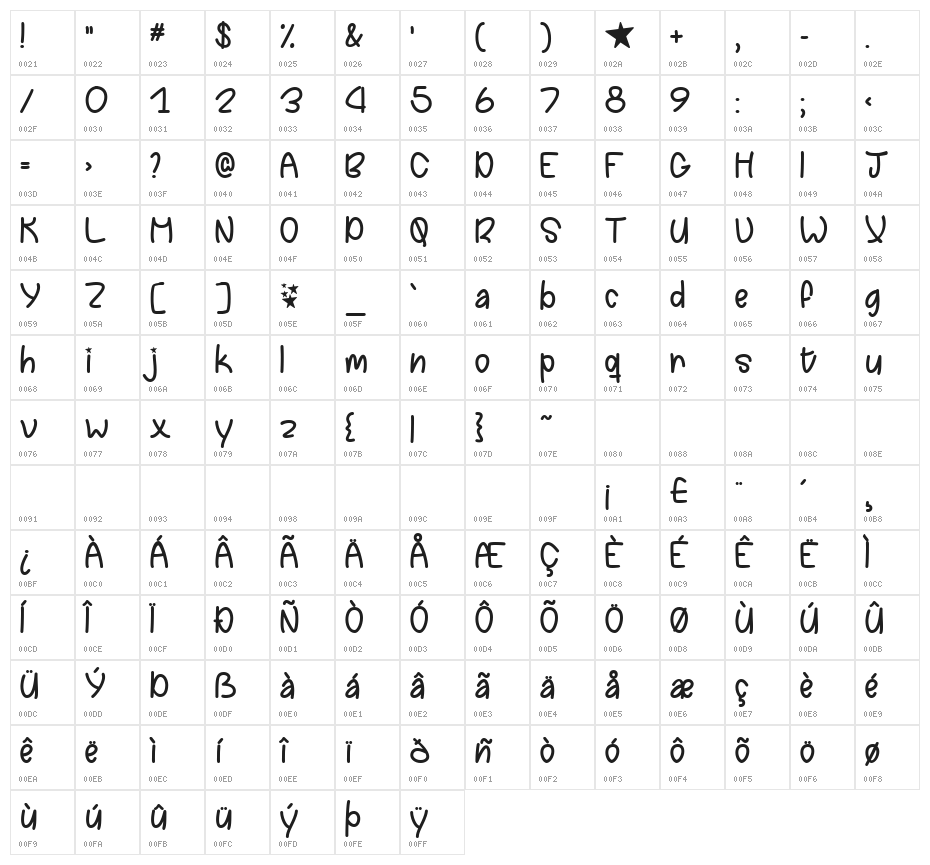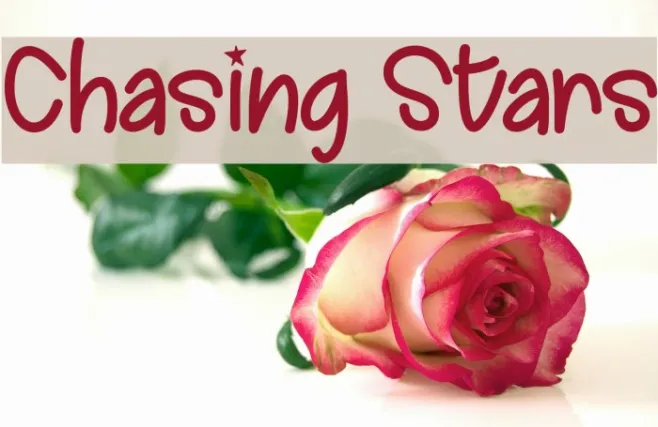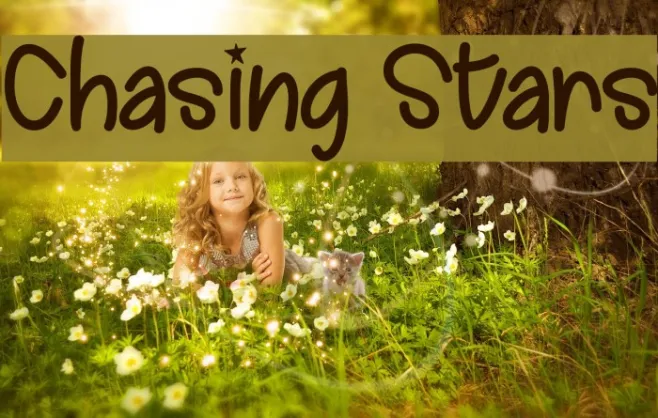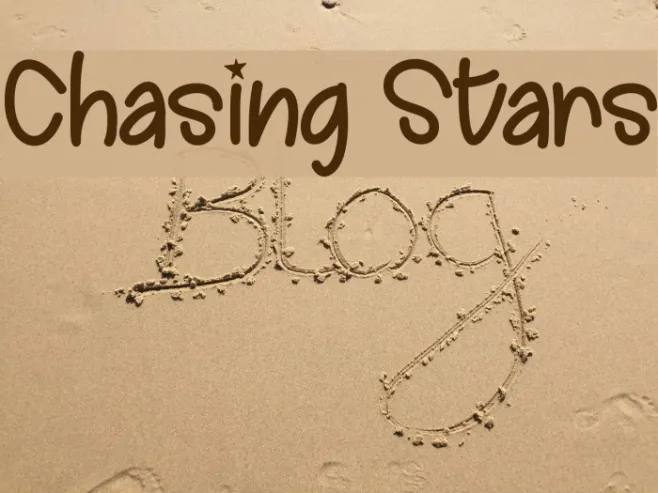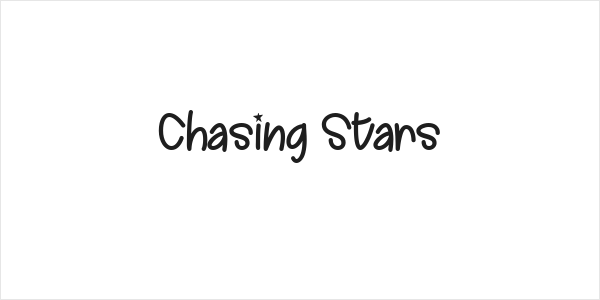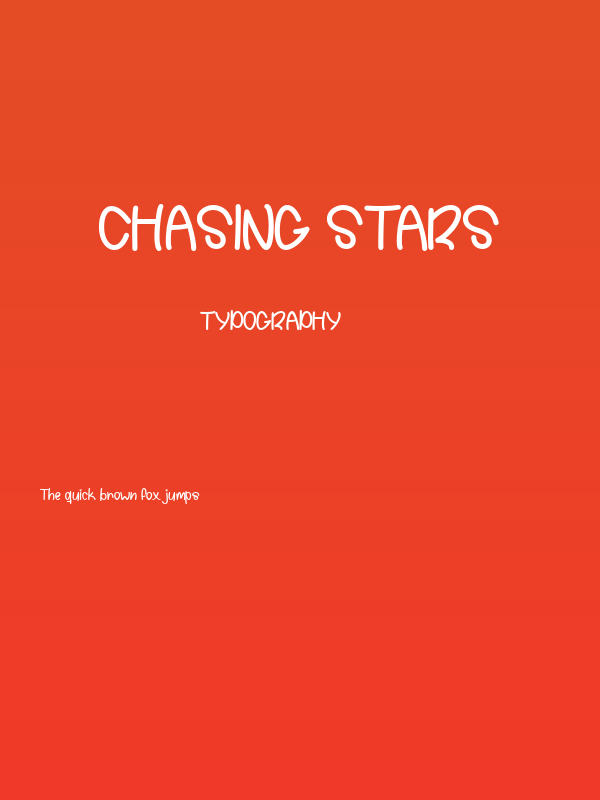
Chasing Stars Font
Chasing Stars Description
This playful and whimsical font features a handwritten style with a casual and friendly appearance. The characters are rounded and slightly irregular, giving it a lively and approachable feel. The uppercase letters are bold and prominent, while the lowercase letters maintain a consistent flow with a touch of uniqueness, such as the star accents on certain characters. The numerals are clear and easy to read, complementing the overall style. The special characters are creatively designed, adding to the font's charm and versatility. This font is perfect for projects that require a fun and informal touch.
| Proposed Projects | Ideal for children's books, greeting cards, playful branding, and creative posters. |